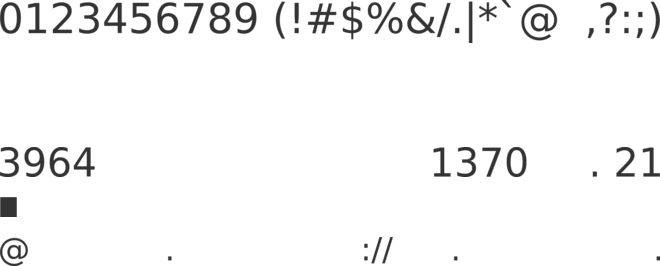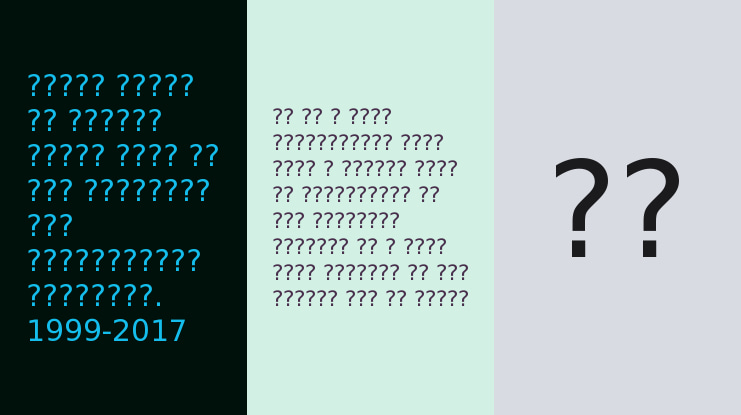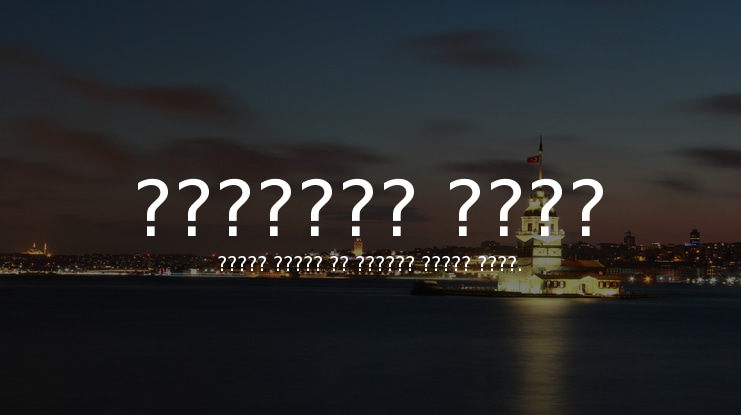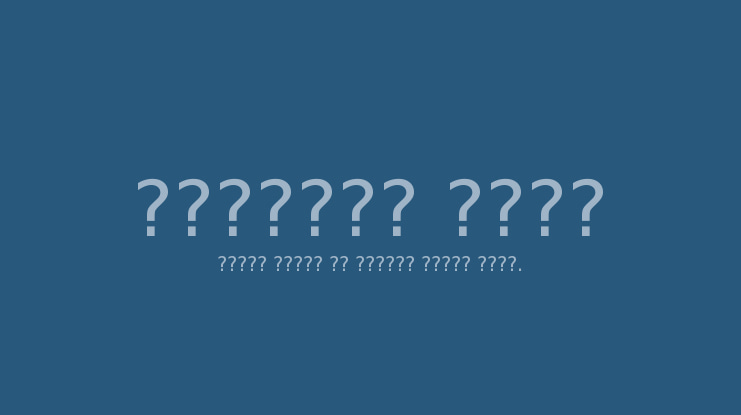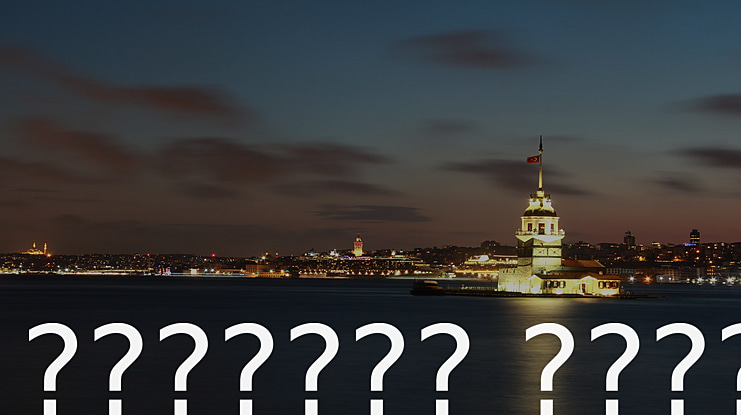
The Iranian family of the fonts are designed by support from Iranian National Initiative for Free and Open Source Software to provide a good looking and free font for Persian script. It consists of two main fonts: Iranian Sans and Iranian Serif to be used in appropriate contexts. It is a good font to be used by default for Persian script. (this text is copied from http://fedoraproject.org/wiki/Iranian_fonts)